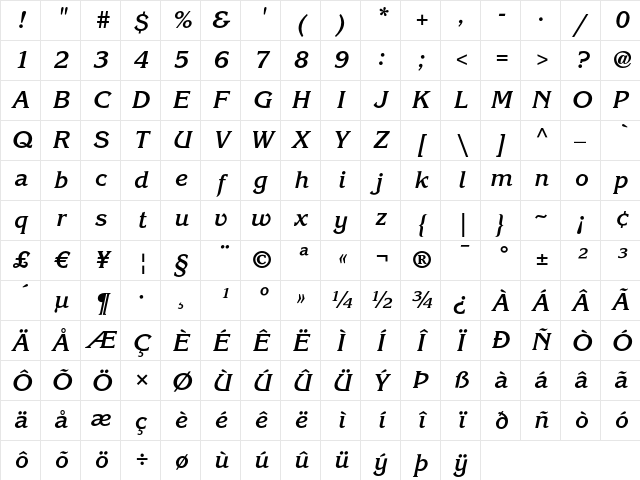
ITC Korinna LT Bold Kursiv
Style: Bold Kursiv
Complete ITC Korinna LT Bold Kursiv glyph index. Displaying only characters natively supported by ITC Korinna LT Bold Kursiv font.
Design Context for ITC Korinna LT
ITC Korinna LT is a composed and adaptable typeface that performs quietly and consistently across a wide range of design contexts. The slanted form adds forward momentum and visual energy. Its bold stroke weight gives it real presence on the page.